From Idea to IRL
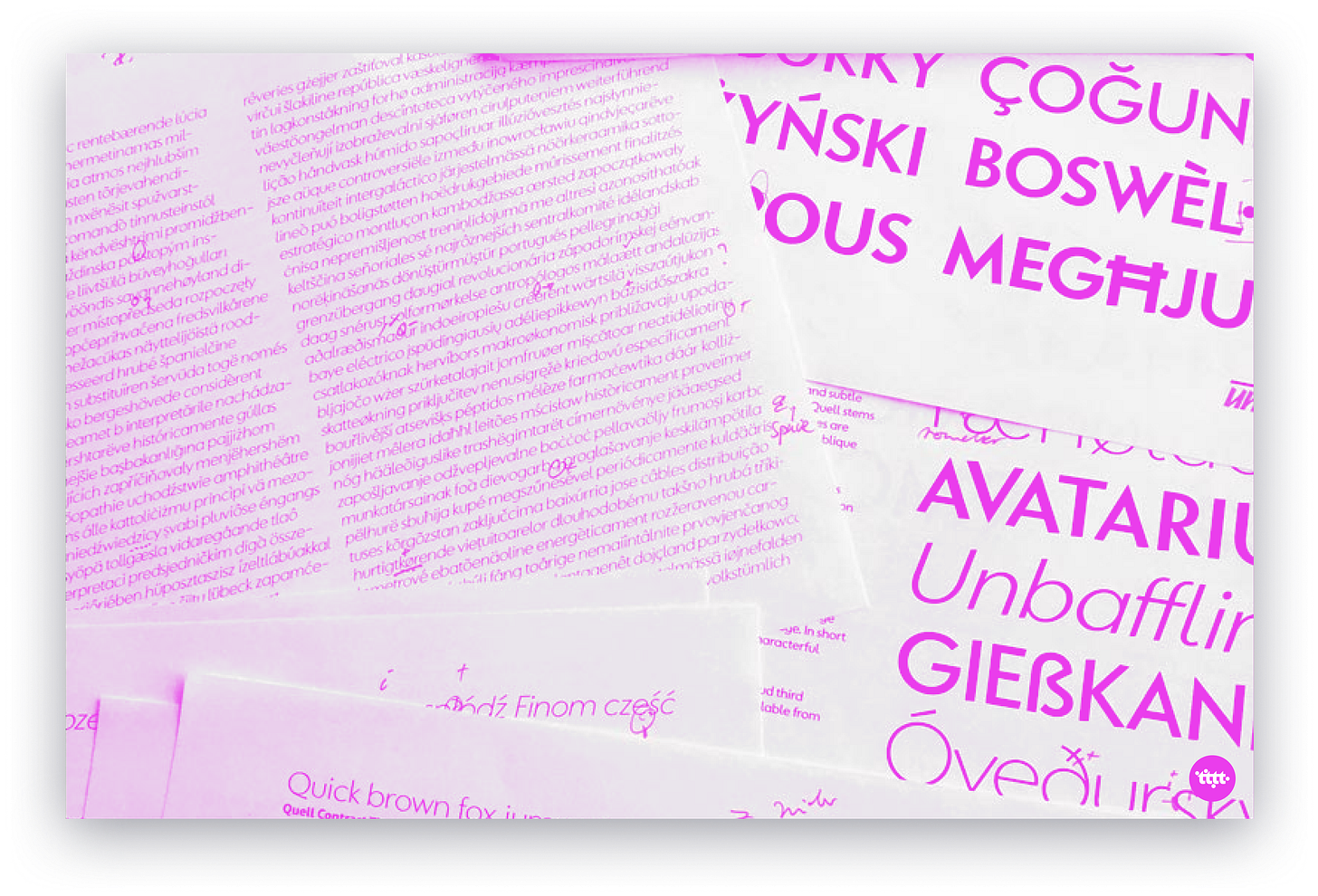
💡 From Idea to Typeface💡
HOW ARE FONTS DESIGNED? Typeface designers regularly face questions about how fonts are created, and rightly so I would think. It is fairly understandable for this obscure profession to appear somewhat mystifying to the vast majority of people . And truth be told, even for many professionals in the fields of design or publishing the process of drawing and producing a novel font is a small enigma.
What’s this process like? Fonts are created on the computer, right? How does one come up with ideas for a new font?
Johannes Neumeier of Underscore Type elucidates the process of type design here.
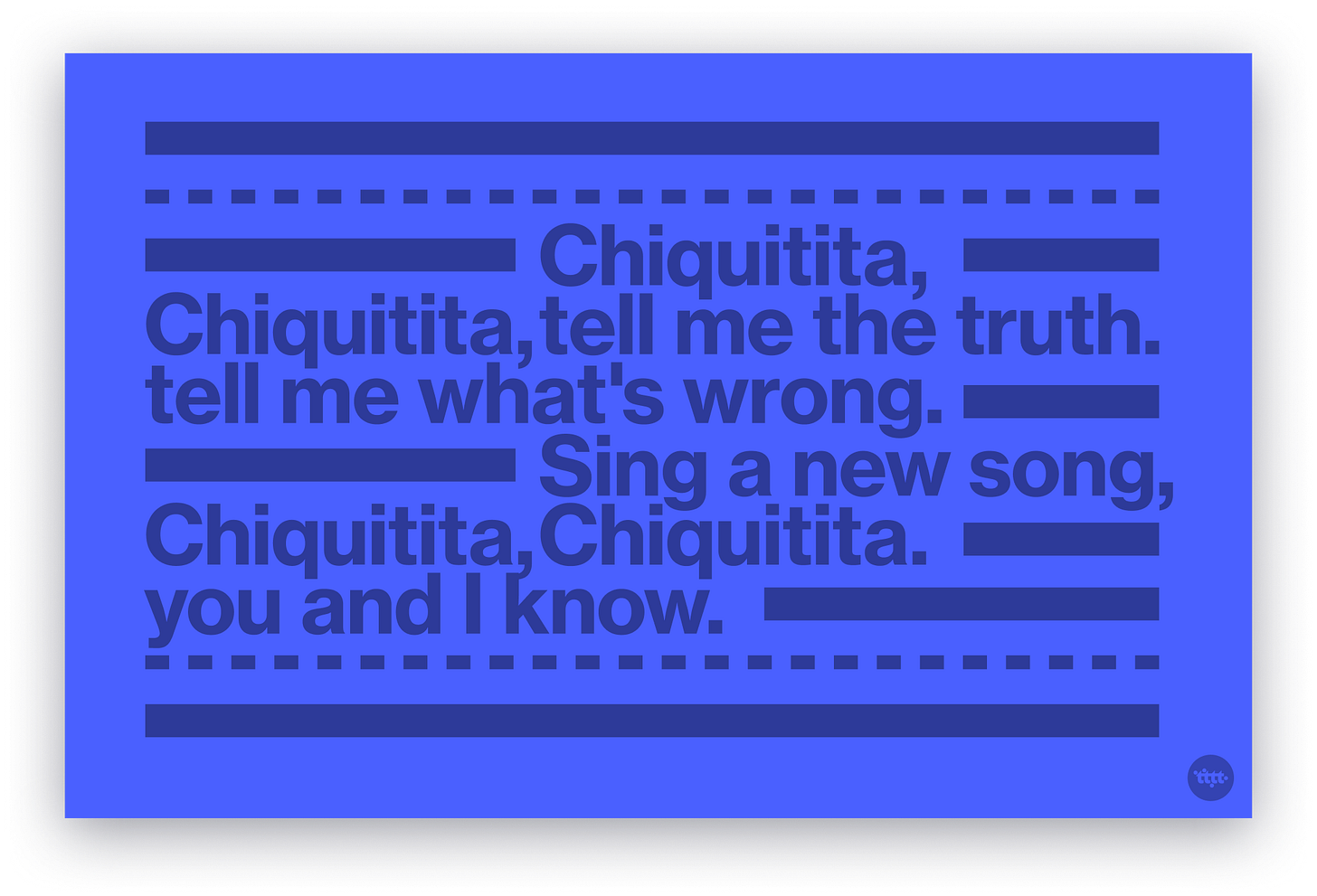
🖋 Face of the Week 🖋
NEUE HAAS GROTESK. A Classic but better.
The digital version of Helvetica that everyone knows and uses today is quite different from the typeface’s pre-digital design from 1957. Originally released as Neue Haas Grotesk, many of the features that made it a Modernist favorite have been lost in translation over the years from one technology to the next. Type designer Christian Schwartz newly restored the original Neue Haas Grotesk in digital form – bringing back all the classic features.
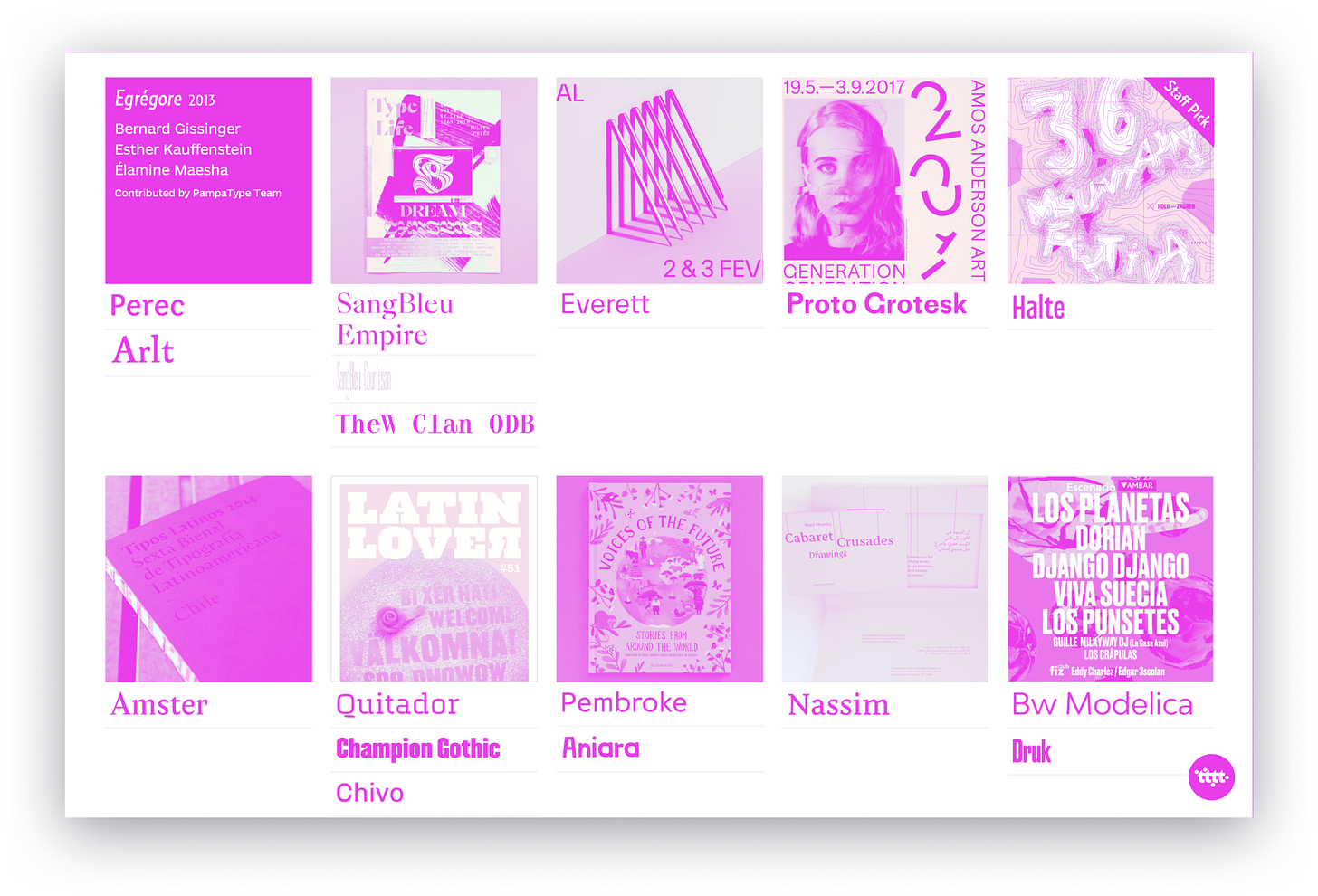
💼 Type at Work in the Real World 💼
FONTS IN USE. A public archive of typography indexed by typeface, format, and industry. Fonts In Use documents and examines graphic design with the goal of improving typographic literacy and appreciation. First started as a blog in 2010, Fonts In Use became a full-fledged site with a much larger database that opened to contributions from visitors in 2012.
I became aware of FIU sometime in university and it quickly became my go-to place to peruse through industries and the range of application for a certain typeface that I might be considering for my own project.